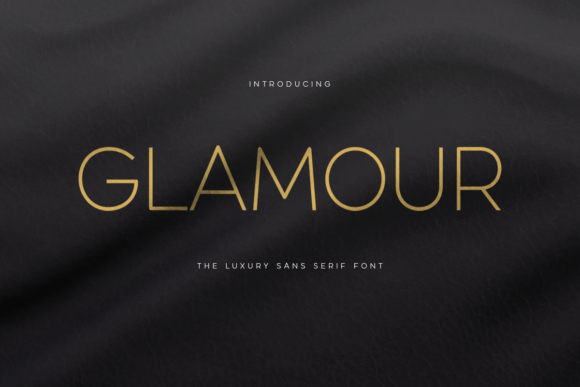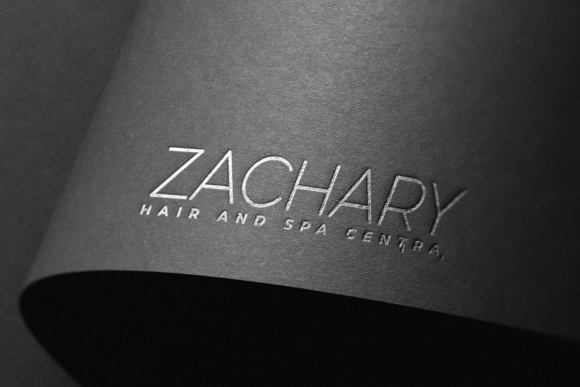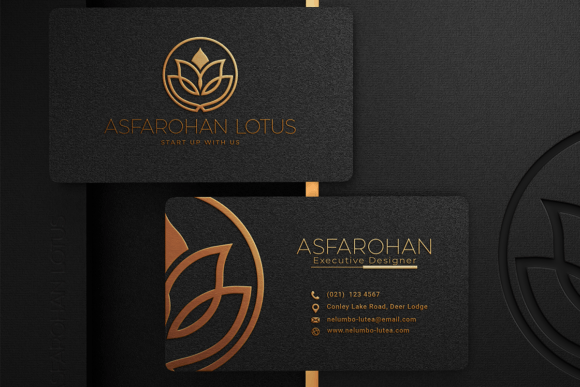
Glamour Font
About the Glamour Font
Get ready to be inspired by Glamour Font, a fresh and dynamic typeface for modern creators. Glamour is a stylish, minimalist sans-serif font exuding sophistication and elegance. With clean lines and balanced proportions, it brings a touch of modern refinement to any design project. Ideal for fashion magazines, luxury branding, and upscale websites, Glamour commands attention with its sleek and timeless appeal.
Glamour excels in headlines, logos, and short-form text applications such as packaging or signage where its refined elegance shines. It’s less suitable for body copy or UI elements, where readability over extended text lengths is paramount. Its minimalist nature could lead to fatigue in larger blocks of text.
Pairing Glamour with a warmer serif like Garamond or a more playful script font such as Allura adds visual interest and contrast, softening its modern edge while maintaining a sophisticated feel. For a bolder, more contemporary look, consider pairing it with a geometric sans-serif like Futura or a neutral sans-serif like Helvetica.
Glamour’s overall personality is sophisticated and understated, conveying a sense of luxury and modern minimalism without being overly austere. It’s a perfect choice for brands emphasizing high quality, refinement, and timeless style.
Glamour Font Example